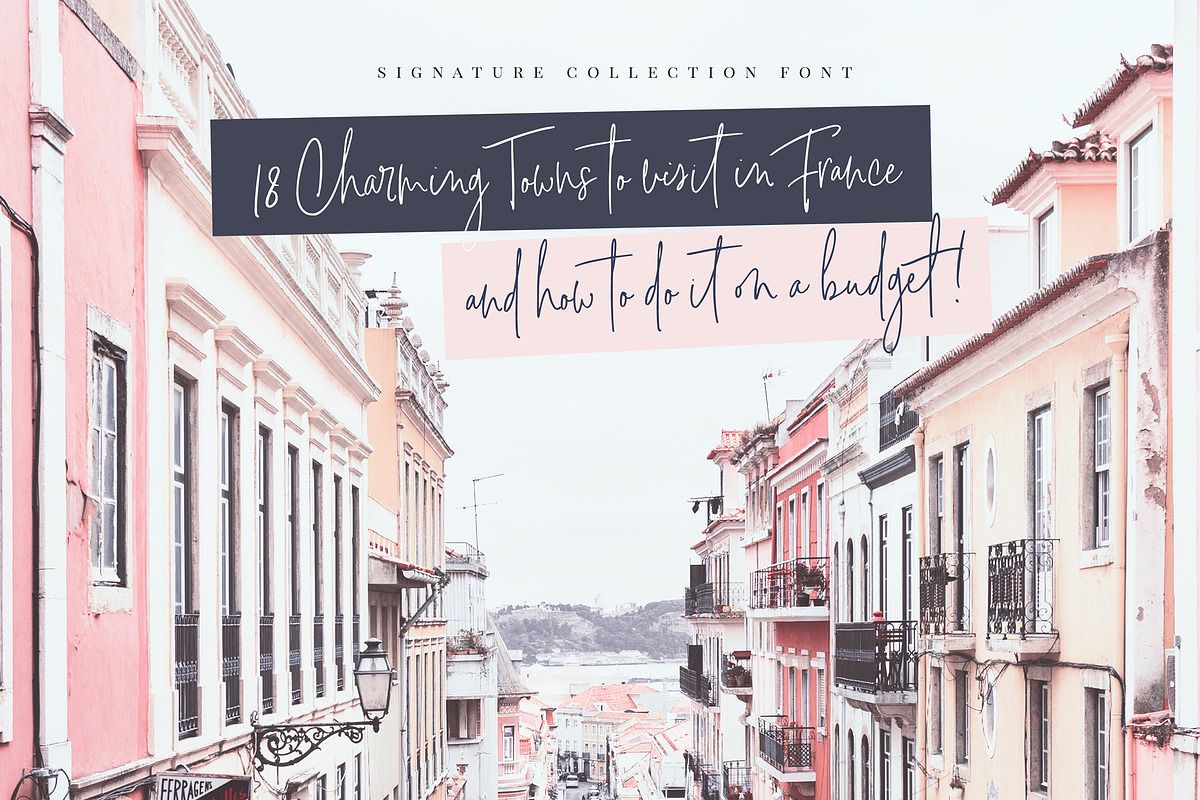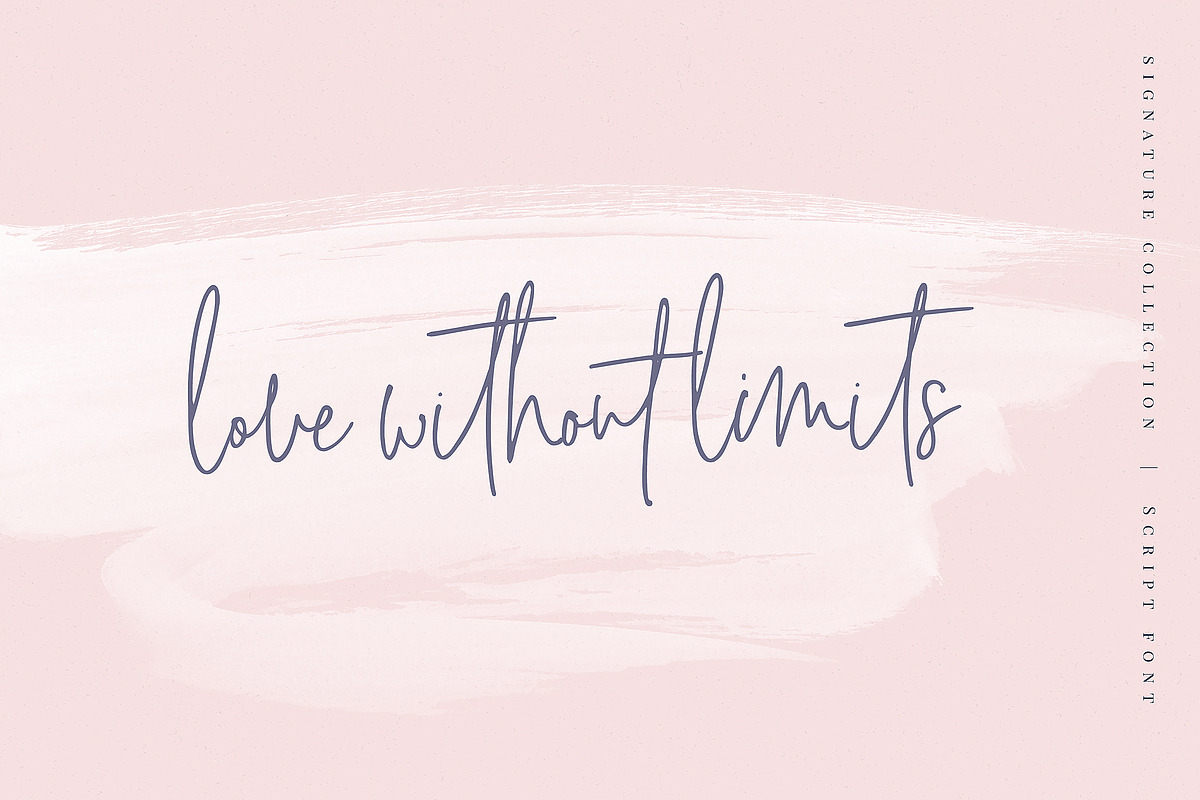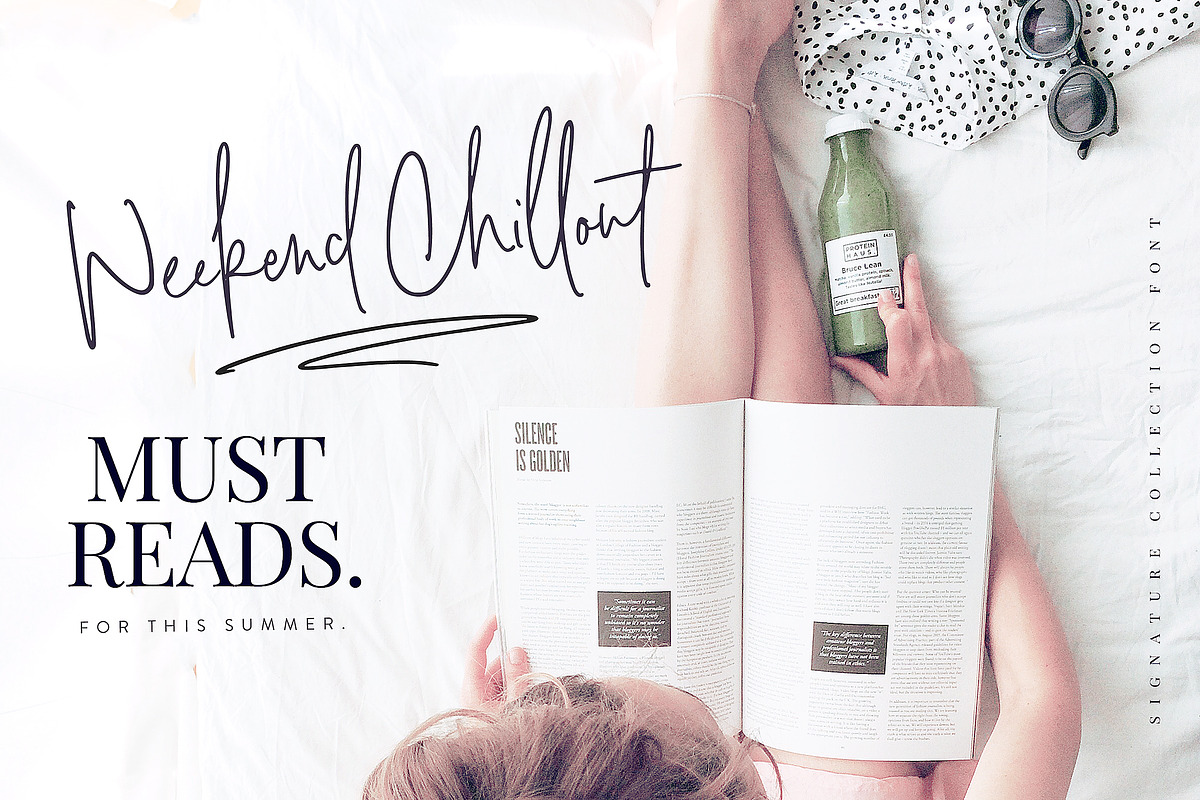
Signature Collection Font
Introducing the new ‘Signature Collection’ script font – A fashionable and super-chilled new handwriting font script with some sexy stylish extras.
Signature Collection font was created to look as close to a natural handwritten script as possible by including over 100 ligatures, and a full set of lowercase alternates. With built in Opentype features, this script comes to life as if you are writing it yourself.